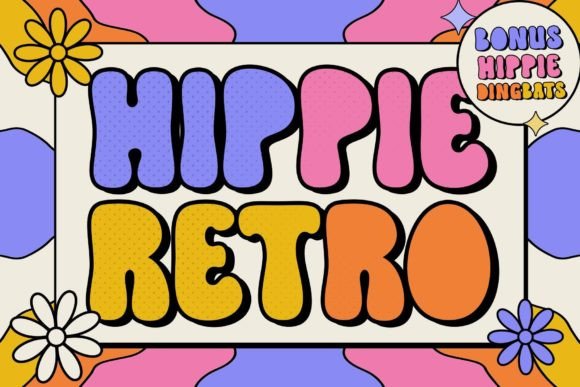
Hippie Retro: A Groovy Display Font
For anyone looking to add a retro vibe to their designs, Hippie Retro is a standout choice. This groovy display font features all caps characters and symbols, making it ideal for a wide range of creative projects. Its unique style brings a sense of nostalgia and fun to any visual work.
Whether you're designing t-shirts, stickers, or social media posts, Hippie Retro offers a fresh and eye-catching way to express your ideas. The font's bold and playful appearance makes it perfect for anything from children's books to invitations and more.
What Makes Hippie Retro Special?
Hippie Retro isn't just another fontโit's a style statement. Designed with all caps, it gives your text a strong, confident look that commands attention. The inclusion of symbols and dingbats adds an extra layer of creativity, allowing you to enhance your designs with unique elements.
The font's retro aesthetic is reminiscent of the 60s and 70s, bringing a sense of cool and authenticity to your work. This makes it especially appealing for those who want to evoke a vintage feel in their projects. From music posters to fashion labels, Hippie Retro can help you achieve that authentic, groovy look.
Why Choose Hippie Retro?
If you're a designer, marketer, or small business owner, Hippie Retro can be a valuable addition to your toolkit. Itโs perfect for creating eye-catching headlines, logos, and promotional materials. Its versatility means it can fit into both casual and professional settings.
For educators and content creators, the font can make learning materials more engaging, especially when working with younger audiences. Its bold style helps capture attention and make information more memorable. Whether you're teaching a class or sharing content online, Hippie Retro can add a fun and dynamic element to your work.
Entrepreneurs and bloggers will also find value in using Hippie Retro. It can elevate the visual appeal of websites, social media posts, and marketing campaigns. With its distinctive look, it helps your brand stand out in a crowded digital space.
Where Can You Use Hippie Retro?
The possibilities for using Hippie Retro are nearly endless. On t-shirts, it can create a bold and stylish look that stands out in a crowd. For stickers, it adds a retro flair that appeals to fans of vintage design. In book covers, it can give a unique and artistic touch that grabs attention.
Social media posts benefit from the font's visual impact, making your content more engaging and shareable. Invitations and event flyers can use Hippie Retro to convey a sense of fun and excitement. Even in children's books, the font's playful nature can make stories more enjoyable and interactive.
For personal projects, like DIY crafts or custom artwork, Hippie Retro offers a way to express your individuality. Its flexibility allows it to adapt to different styles and themes, making it a go-to choice for many creative endeavors.
Getting Started with Hippie Retro
If you're new to using display fonts, starting with Hippie Retro can be a rewarding experience. Begin by experimenting with different sizes and placements to see how the font interacts with other design elements. Donโt be afraid to play around with spacing and color to find the best look for your project.
When using the bonus hippie dingbats, consider how they can complement your text. These symbols can add visual interest and reinforce the retro theme of your design. However, it's important to use them thoughtfully to avoid overwhelming the overall composition.
Before finalizing your design, test it in different formats and contexts. Make sure it looks good on both digital and print media. Also, check that it's legible at various sizes, as some display fonts can become difficult to read when scaled down.
Final Thoughts on Hippie Retro
Hippie Retro is more than just a fontโit's a tool for creativity and self-expression. Its retro charm and versatile design make it suitable for a wide range of applications. Whether you're a seasoned designer or just starting out, this font can help you bring your vision to life in a unique and memorable way.
By incorporating Hippie Retro into your work, you can add a touch of nostalgia and personality that resonates with your audience. Its bold style and fun elements make it a great choice for anyone looking to stand out and make a lasting impression.